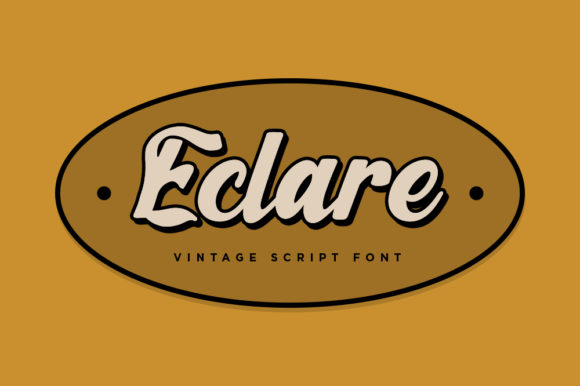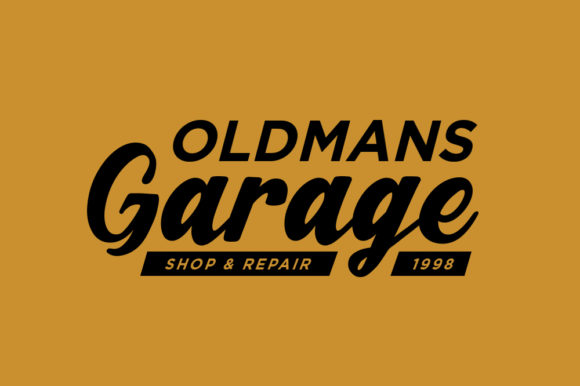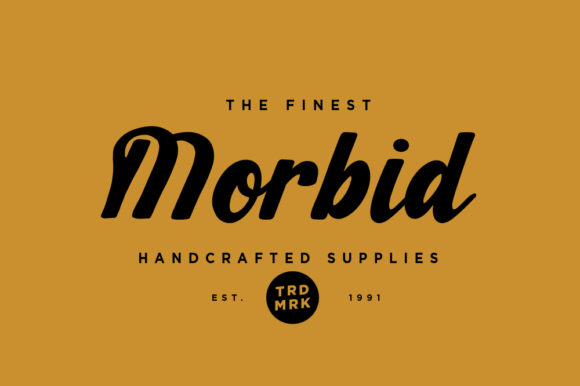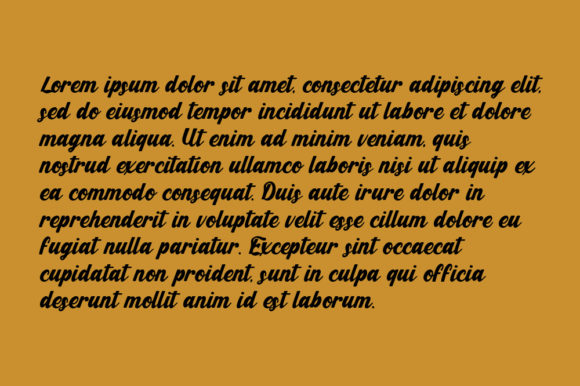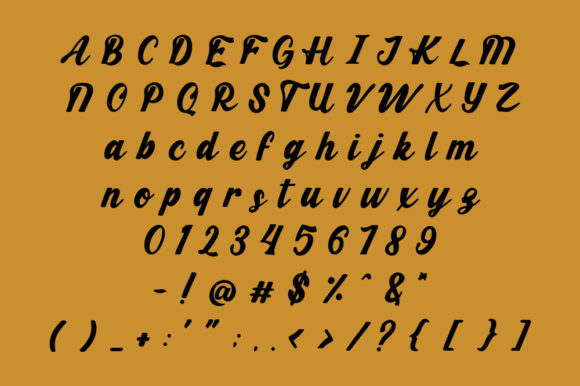
Eclare Font
About Eclare Font
Eclare feels playfully nostalgic and delivers an incredible vintage aesthetic. This handwritten font will look particularly adept when used in logos, branding, packaging design, and much more.